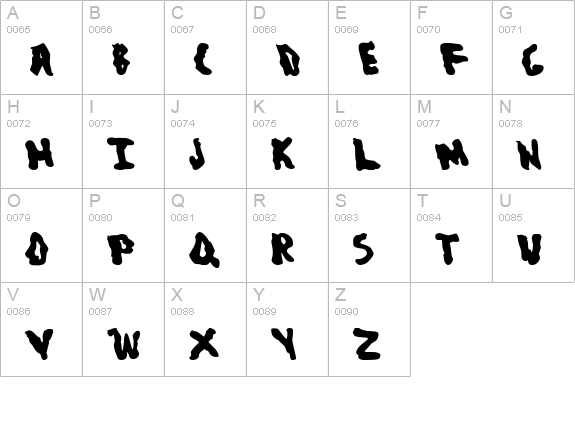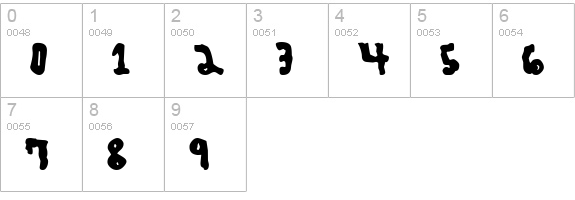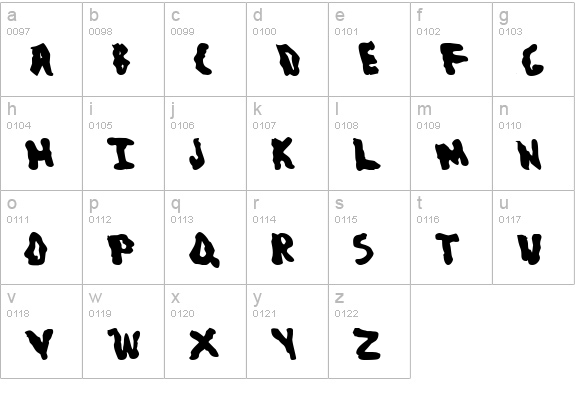
Blob Font Details
Introducing the charming and playful Blob font, a whimsical typeface that is sure to add a touch of fun to your projects. This unique font features soft, rounded edges and a friendly appearance, making it perfect for creating eye-catching designs and grabbing attention. Blob font is ideal for a variety of creative projects, including branding, packaging, posters, and more. Its versatility allows it to be used in both digital and print applications, making it a valuable addition to any designer's toolkit. Best of all, Blob font is completely free to download at FontsMarket.com. Simply visit the website and start using this delightful font in your projects today. Don't miss out on the opportunity to add a touch of whimsy to your designs with Blob font!